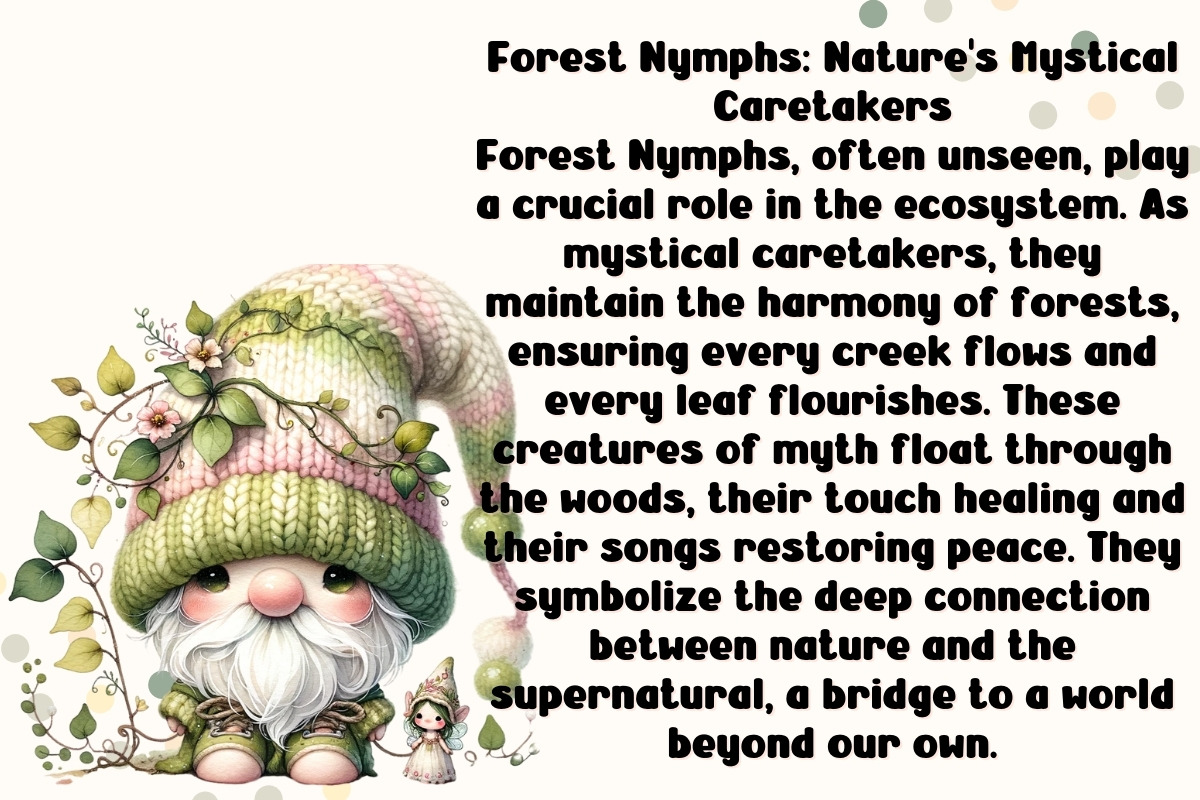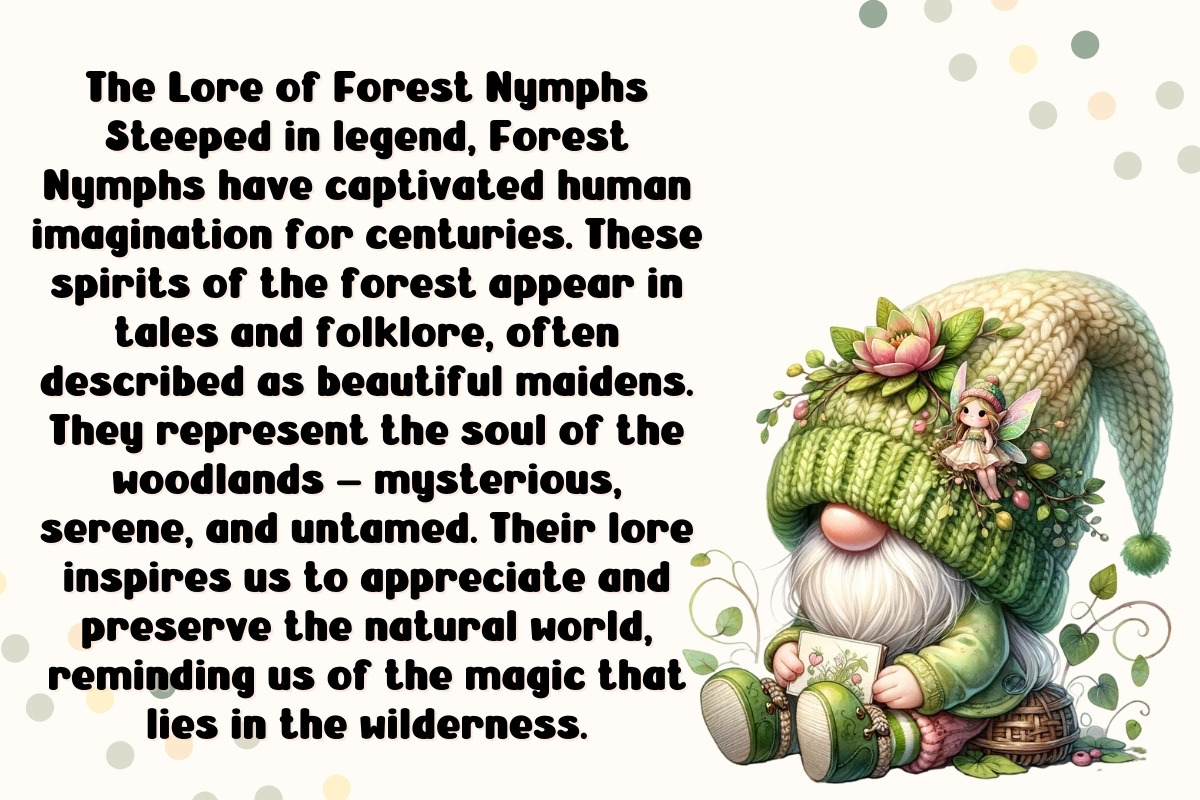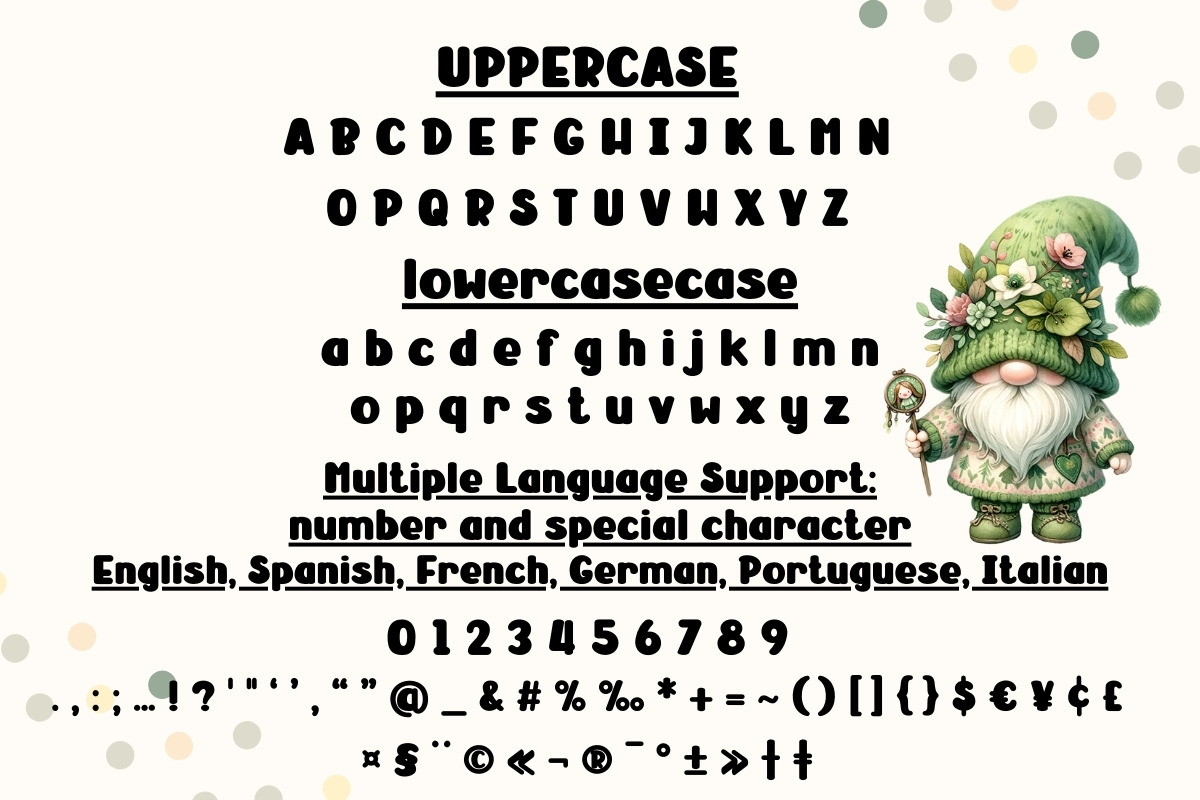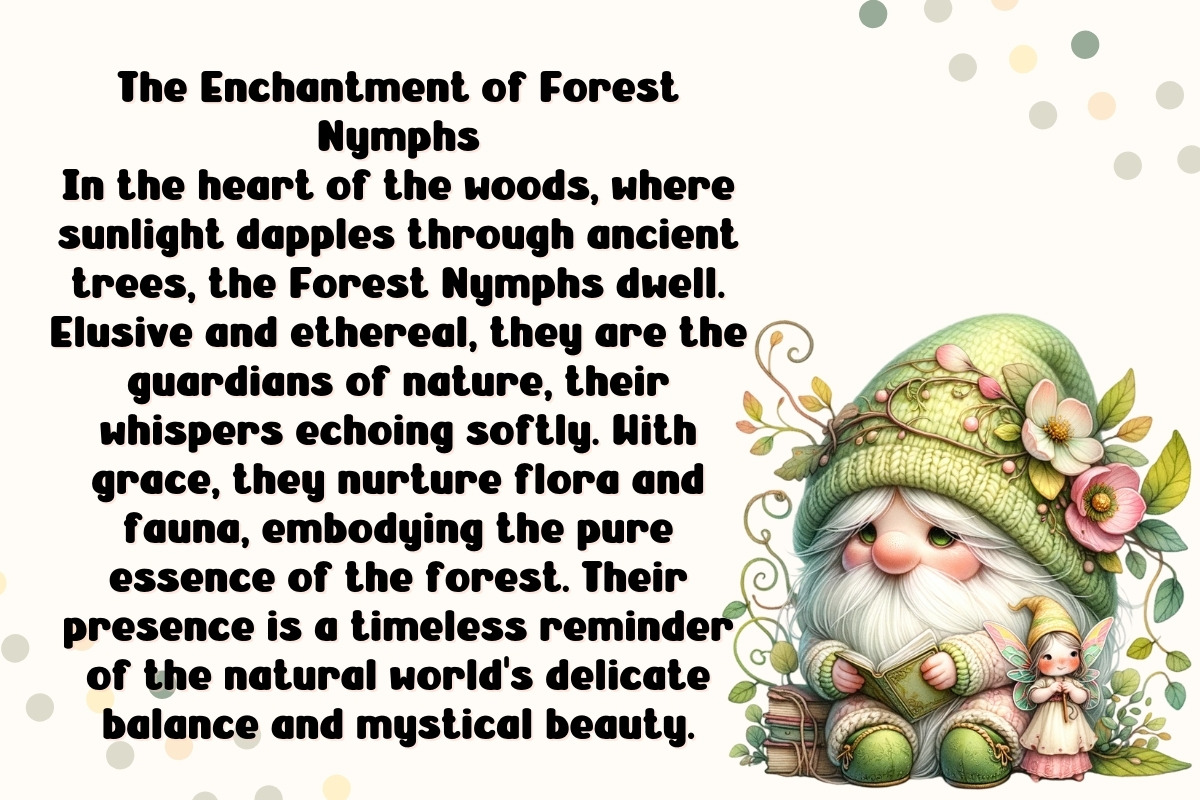
Forest Nymph - Handwritten
Invite Enchantment into Your Designs Forest Nymph isn't just a font; it's a gateway to a whimsical world. Its unique style ensures that your designs will stand out, whether you're creating a logo, a birthday card, or a special event invitation. Let Forest Nymph transform your creative ideas into enchanting realities.
Embrace the magic of Forest Nymph and let your designs bloom with creativity and charm!